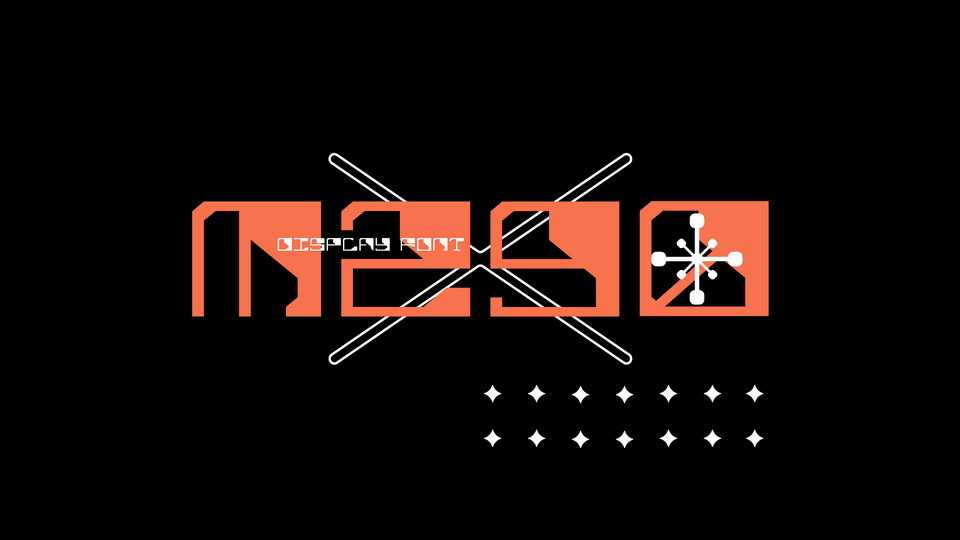
Download M290 font, a bold geometric display typeface based on the modular grid. M290 is ideal for any kind of display use from posters to typography artworks.